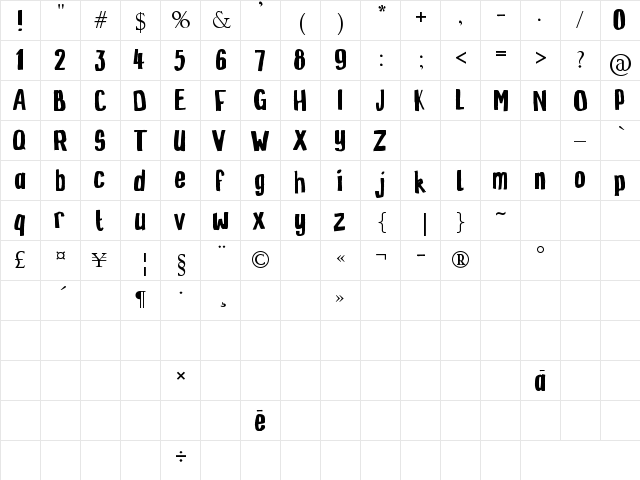
ZINZOZO Regular
Design Context for ZINZOZO Typeface
ZINZOZO offers clean, dependable letterforms without strong stylistic allegiance, making it a practical choice for designers who need flexibility.